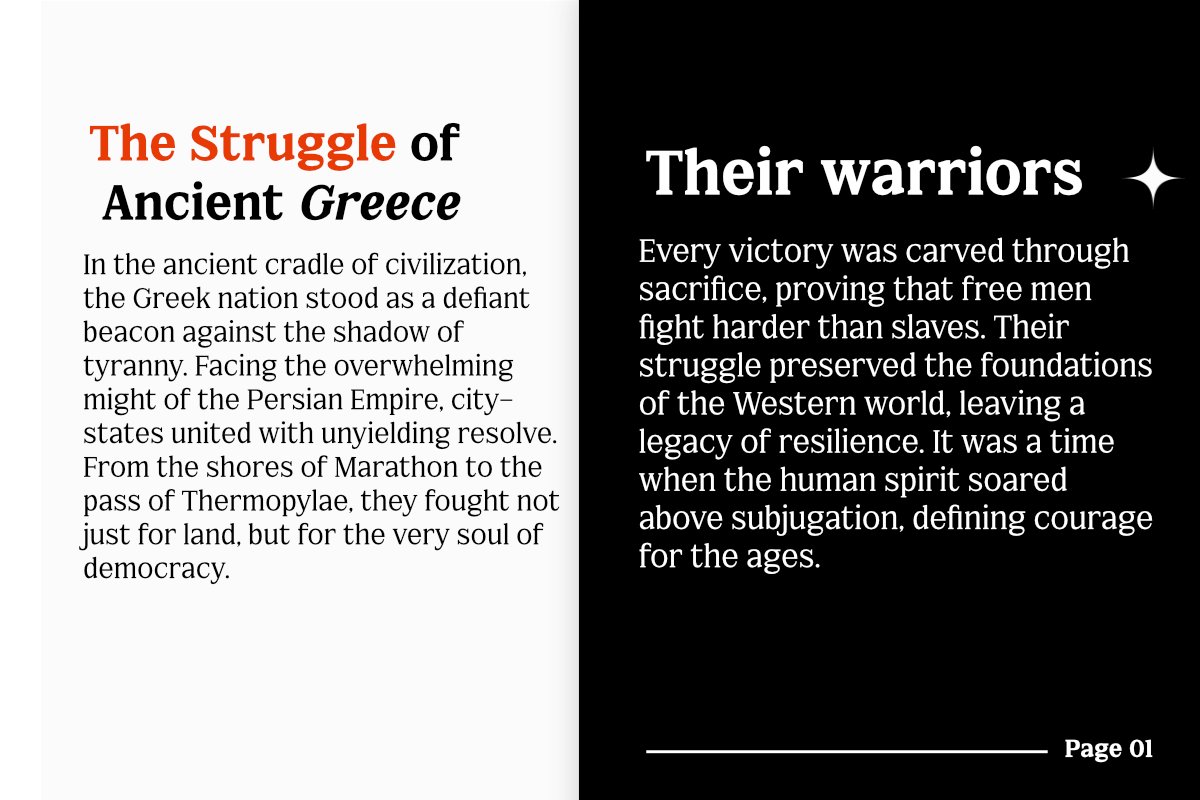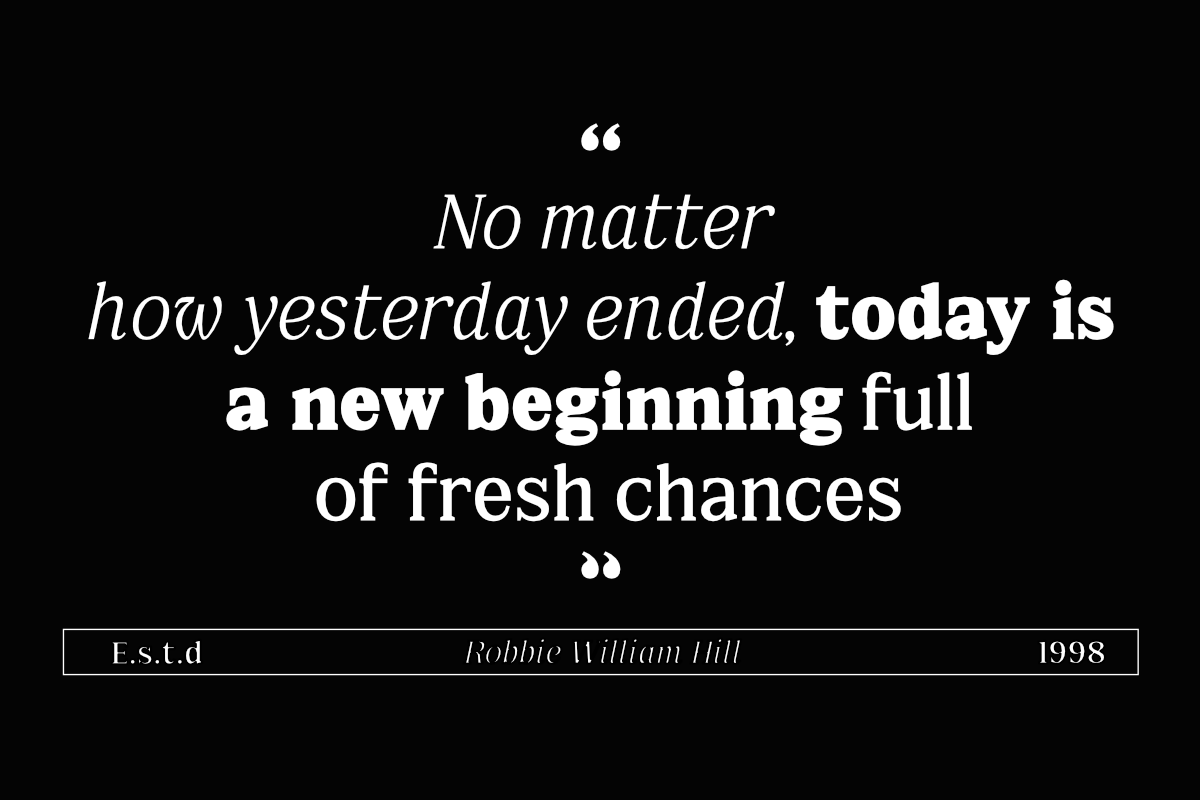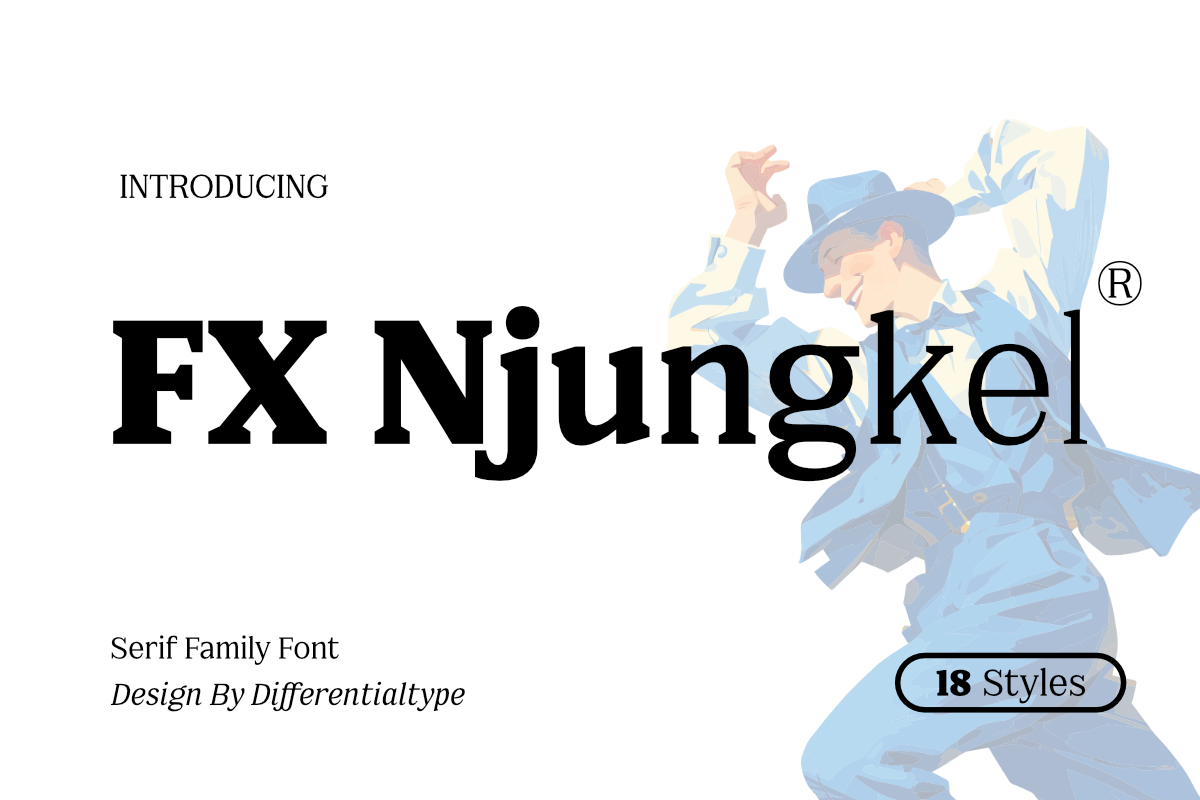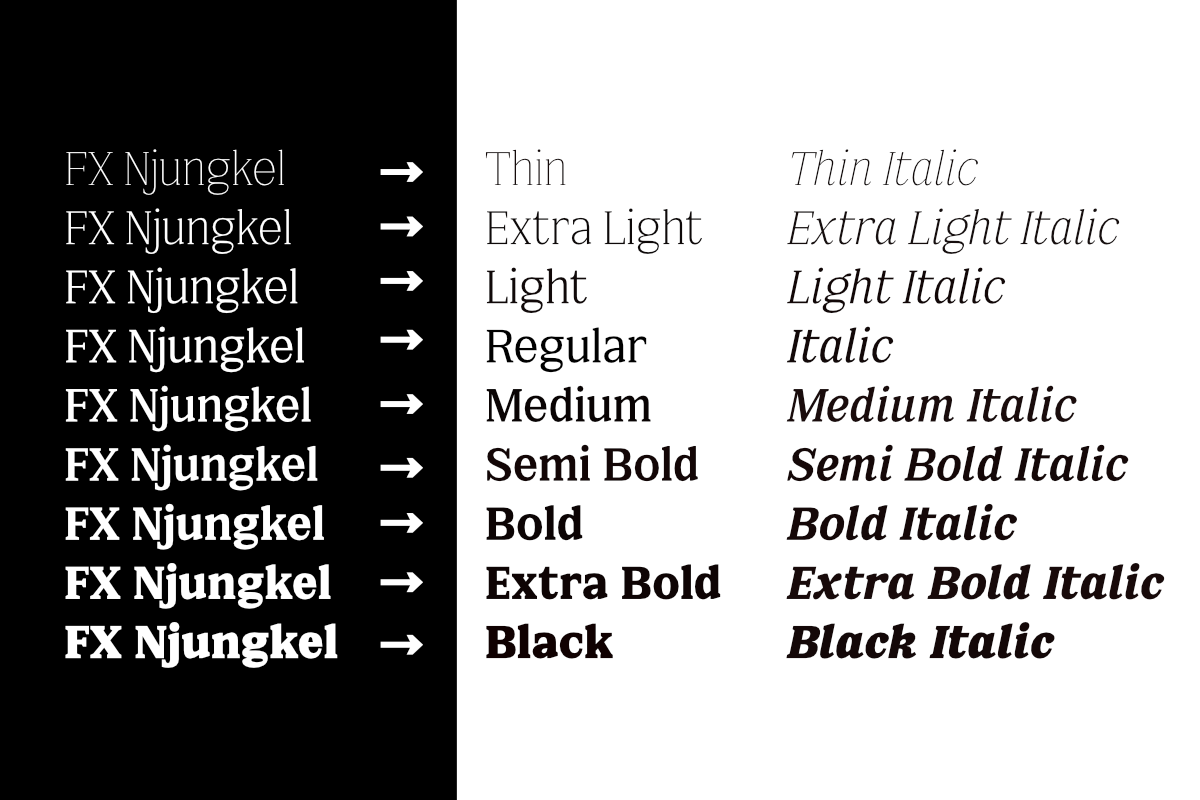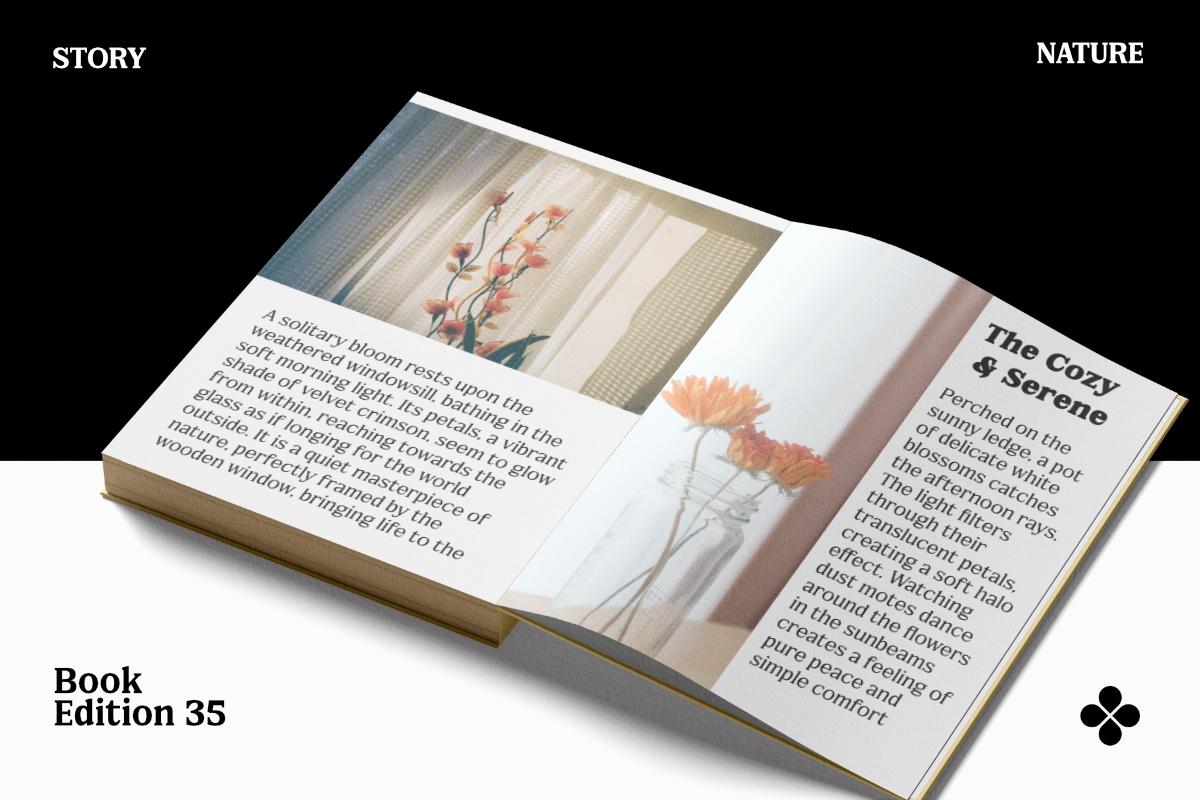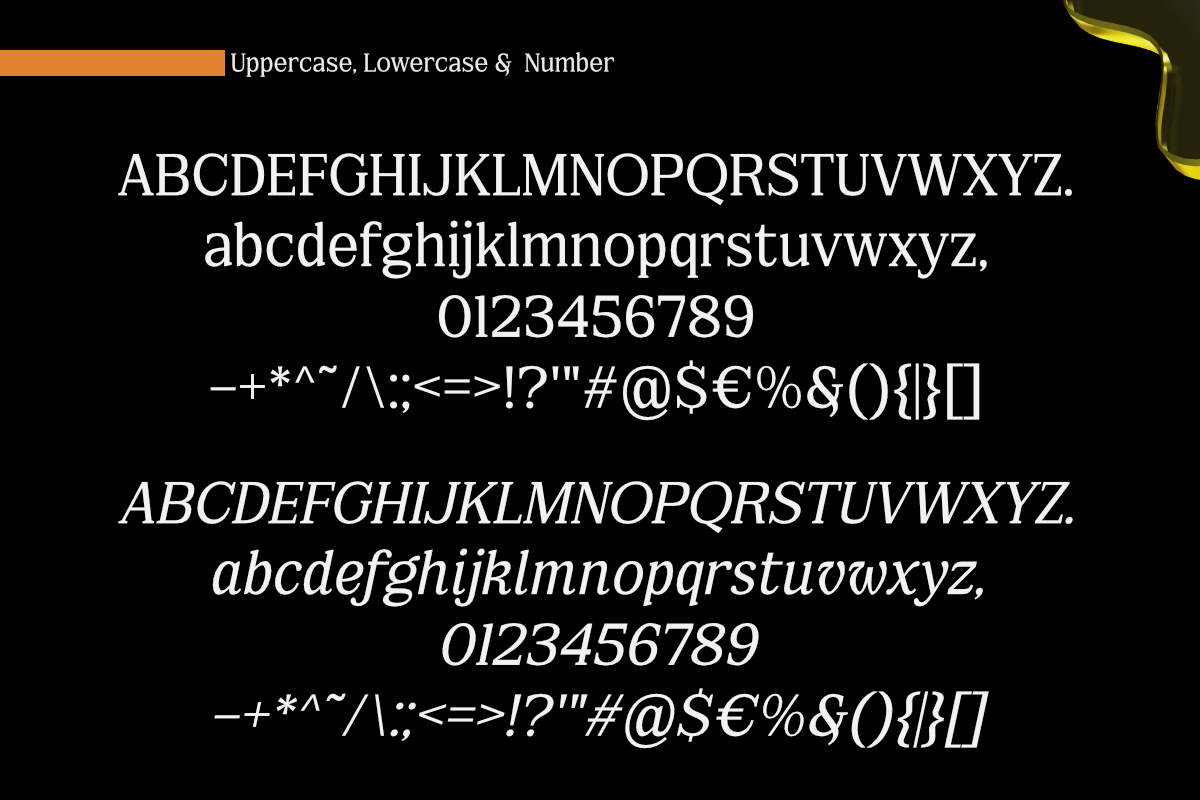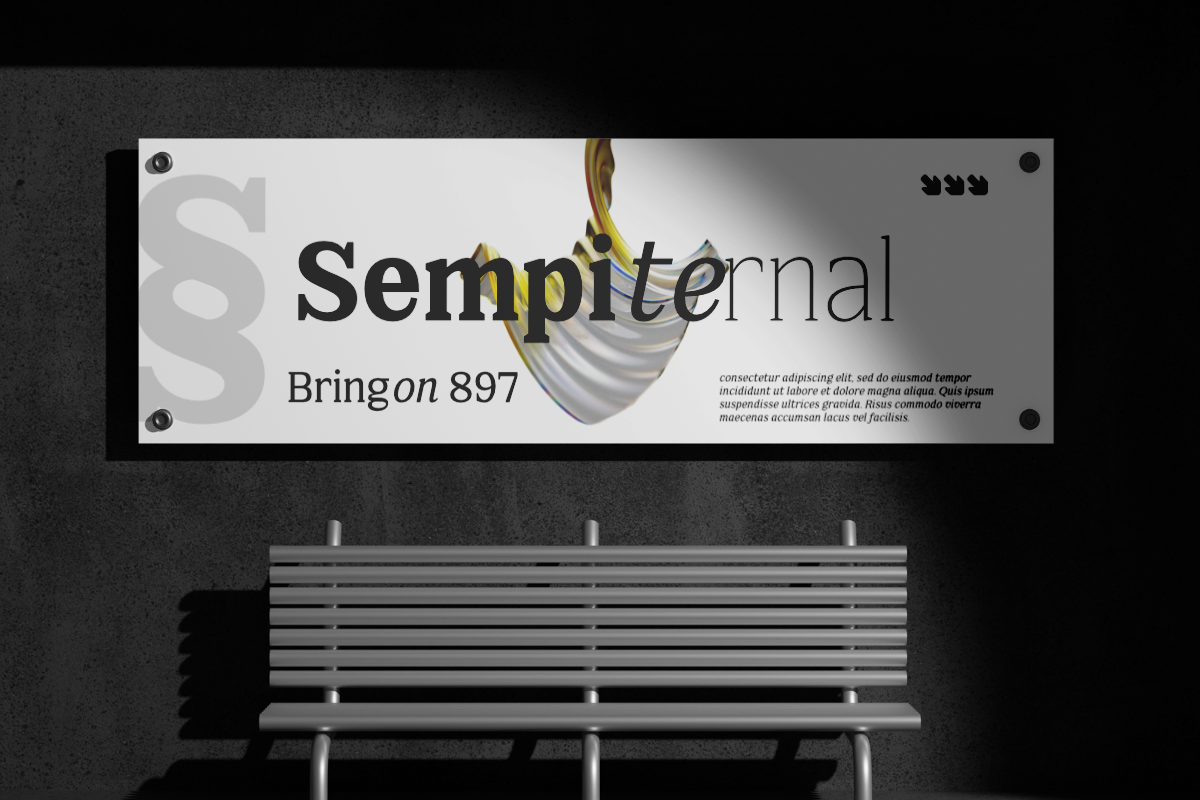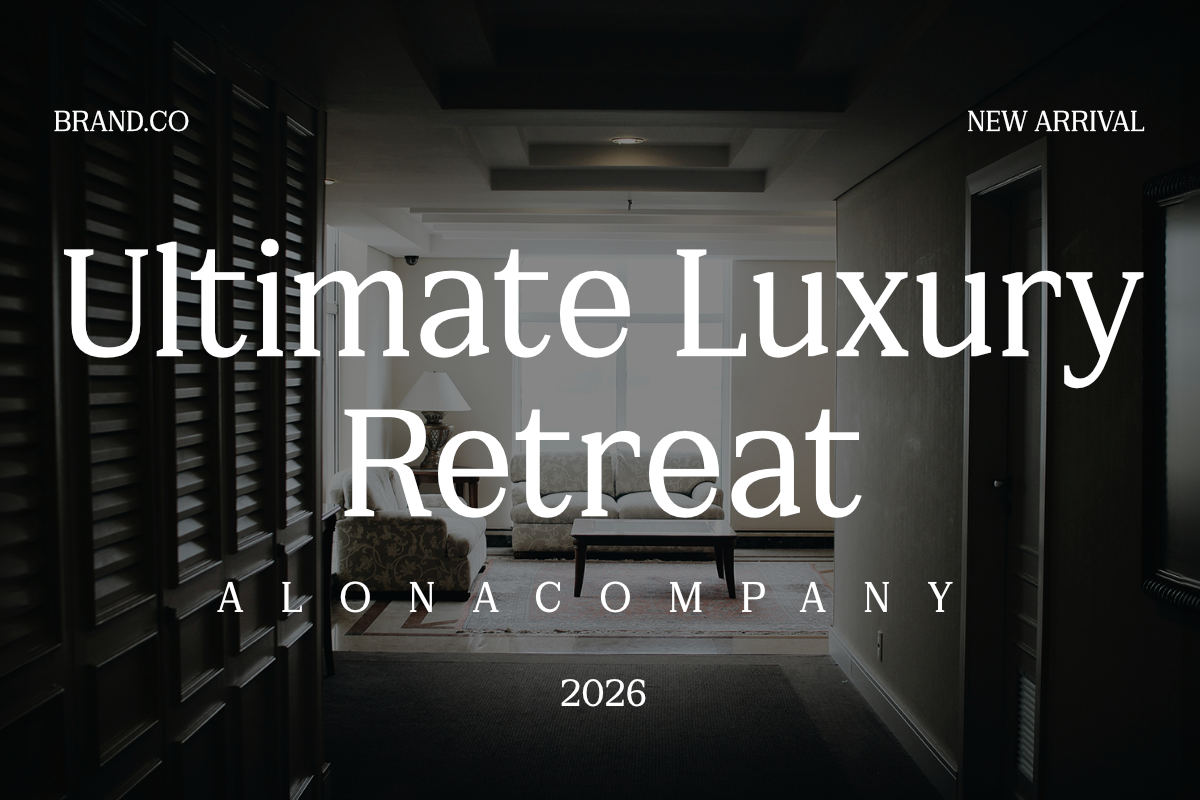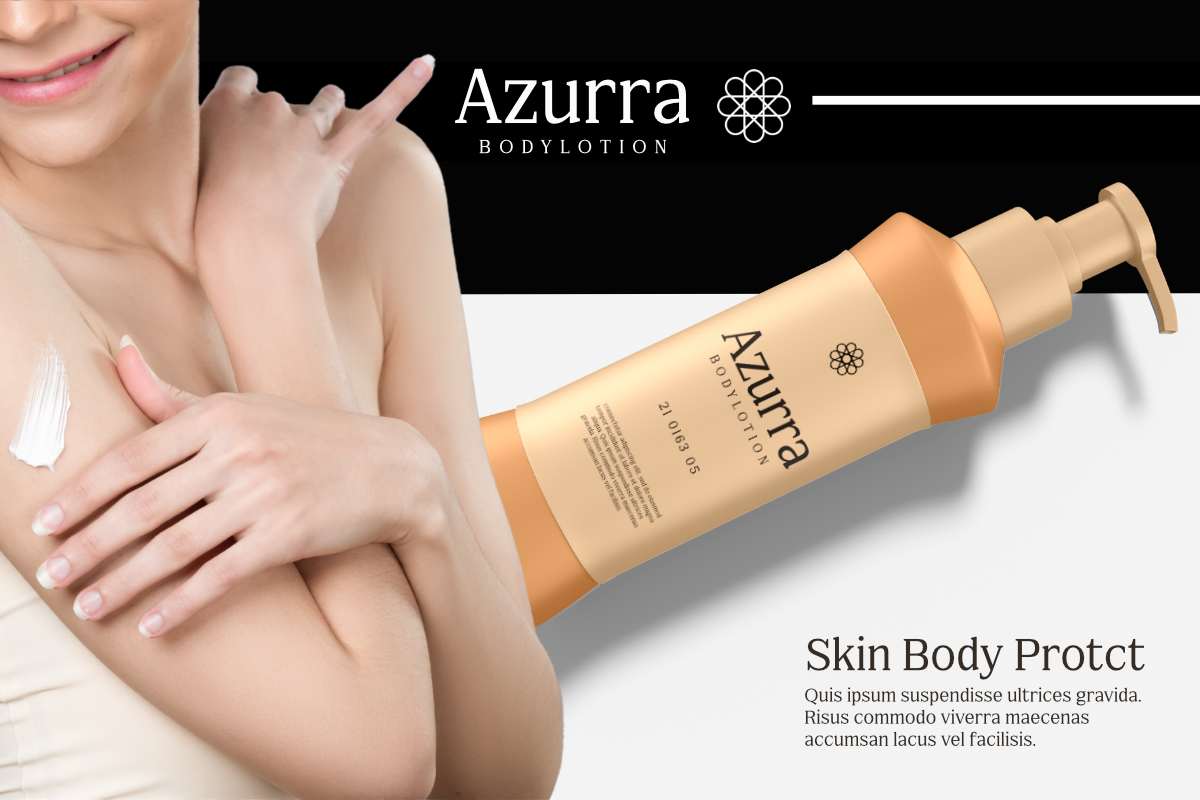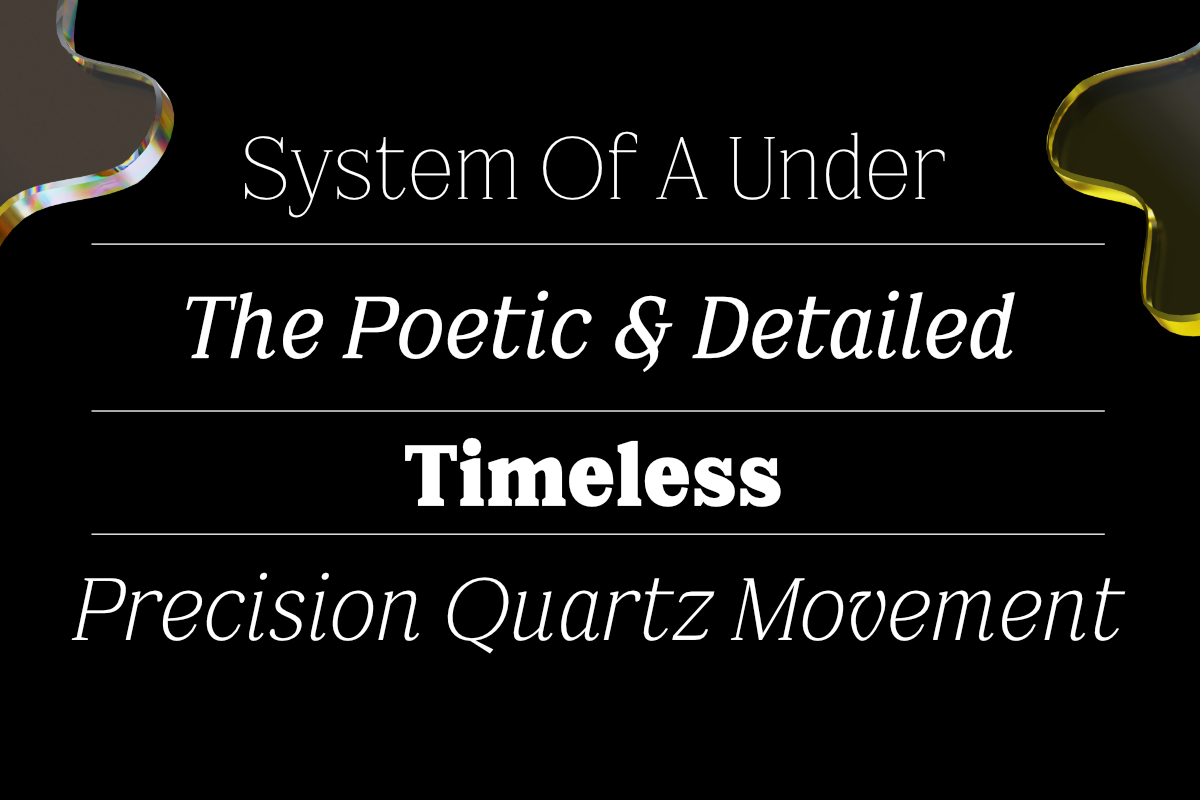
FX Njungkel - Serif Family Font
FX Njungkel is an enchanting vintage serif family that seamlessly bridges the gap between classic nostalgia and modern versatility. With a comprehensive collection of 18 styles, ranging from delicate Thin to commanding Black with matching Italics, this font is meticulously crafted for peak performance across any scale. Whether you need crystal-clear legibility for extensive body text or a bold, striking statement for high-impact displays, FX Njungkel adapts effortlessly to your creative vision, ensuring every word is both readable and remarkable. Designed as the ultimate solution for your design toolkit, FX Njungkel elevates everything from sophisticated logo branding and cinematic movie titles to captivating book covers and vibrant posters. Its timeless character adds a layer of professional polish to any project, making it an essential asset for designers who demand a font that is as functional as it is beautiful. Invest in FX Njungkel today and transform your creative ideas into iconic masterpieces that stand out in any medium.